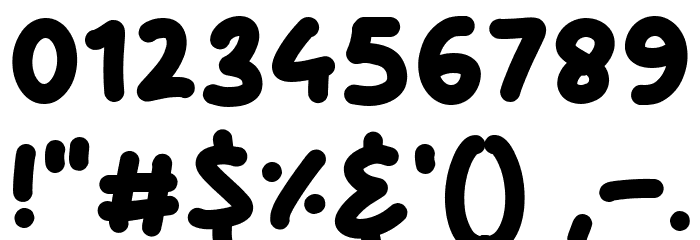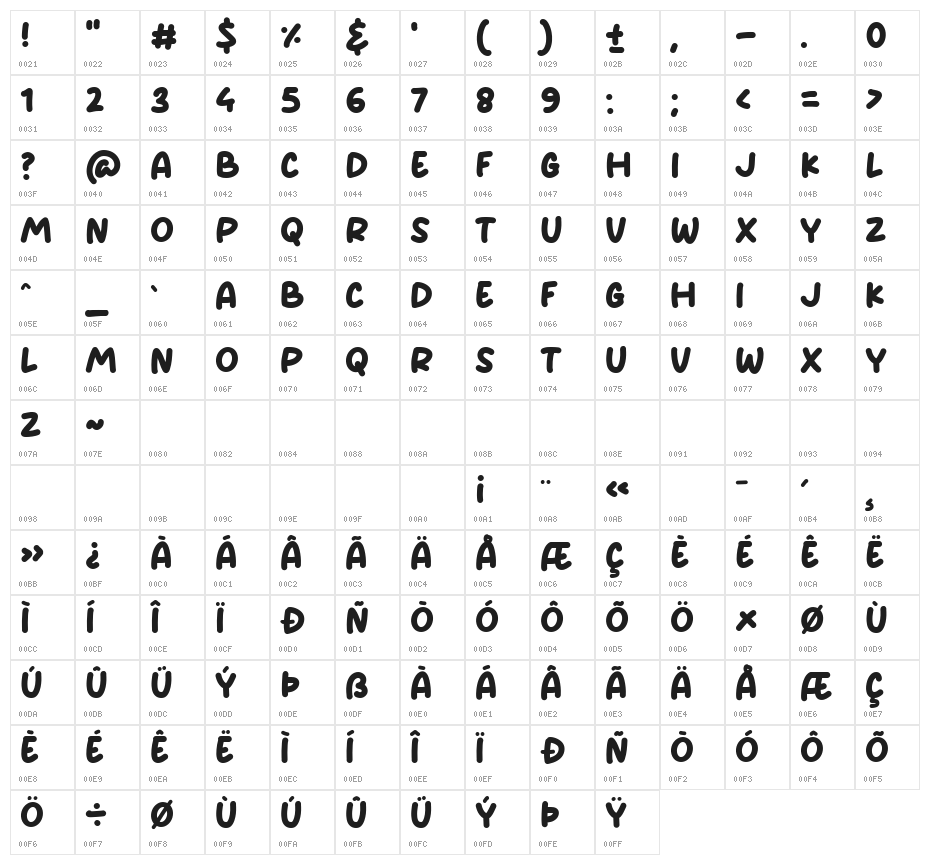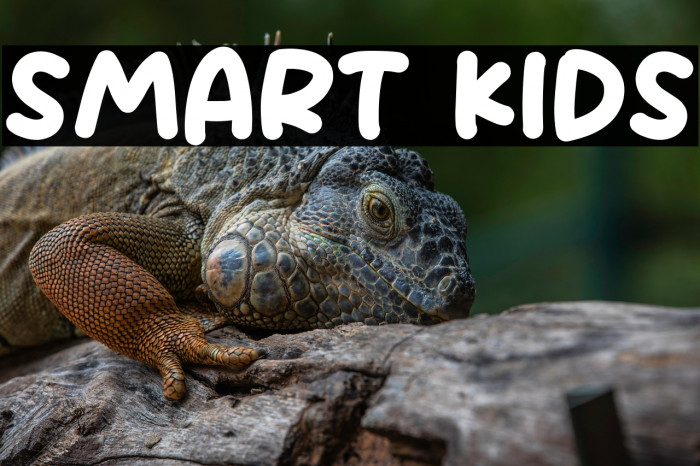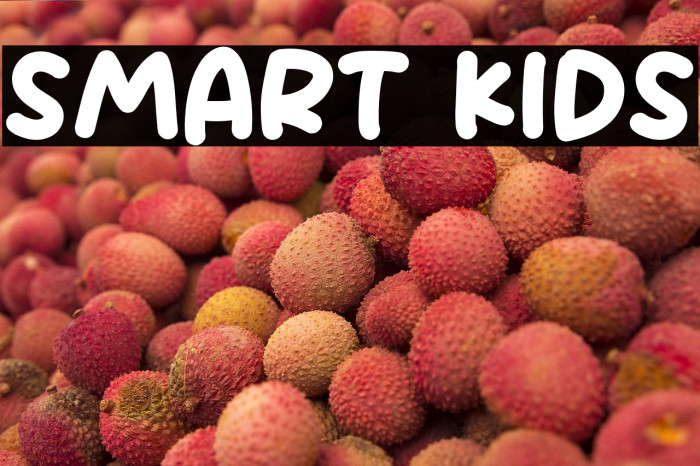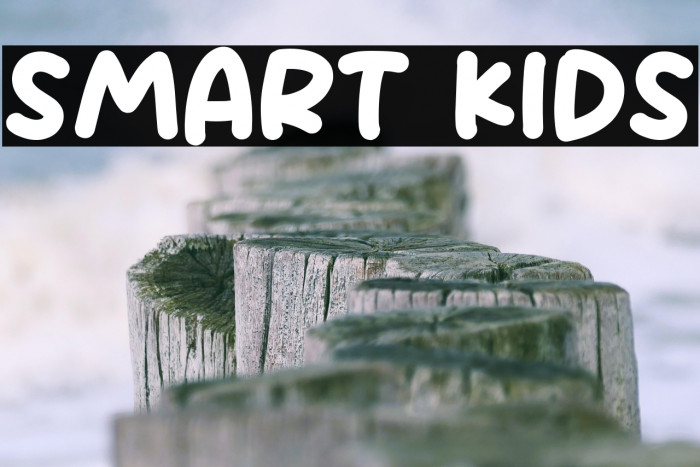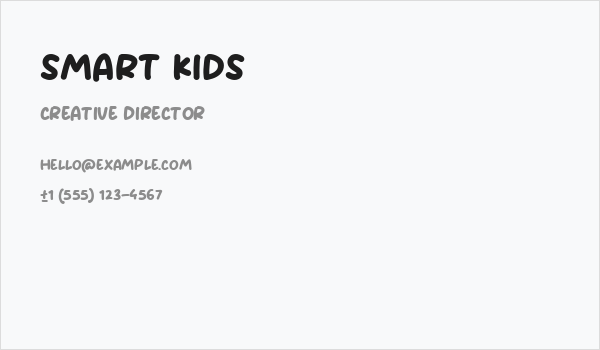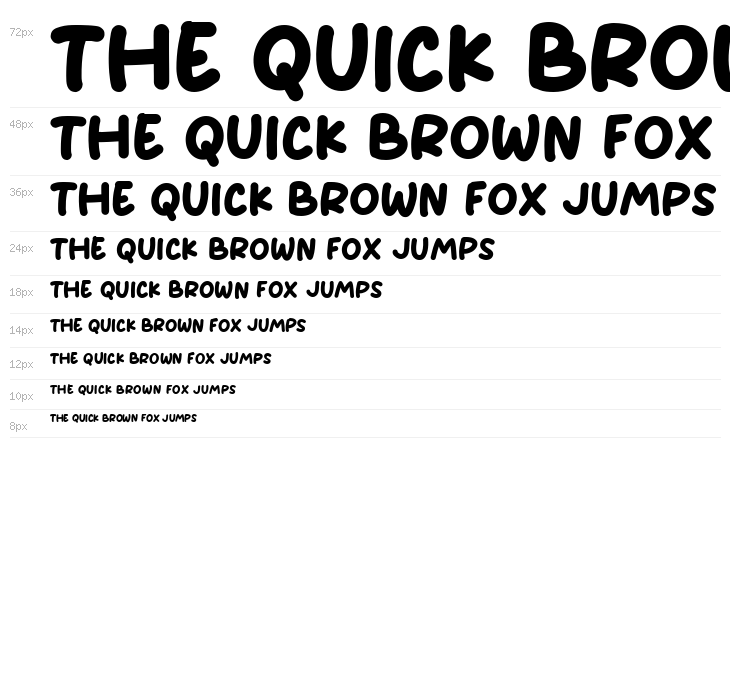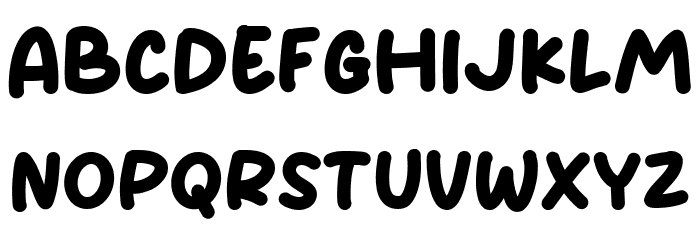
Smart Kids Font
Smart Kids Description
This playful and bold font features rounded, thick strokes that give it a friendly and approachable appearance. The characters are slightly irregular, adding a hand-drawn feel that enhances its charm. The uppercase and lowercase letters maintain a consistent style, with a slight bounce that adds to its whimsical nature. Numbers and special characters are equally bold and rounded, ensuring readability and coherence across all elements. This font's design is ideal for projects that require a fun and engaging aesthetic.
| Proposed Projects | Ideal for children's books, educational materials, playful branding, and creative posters. |